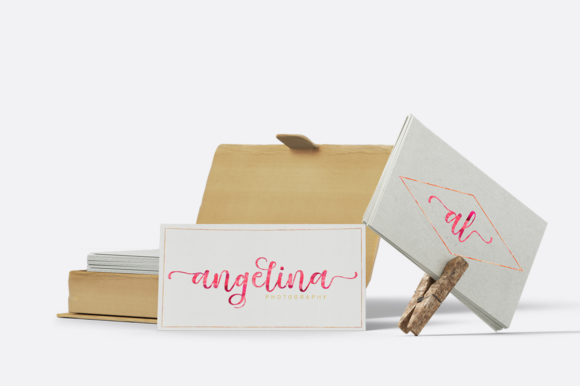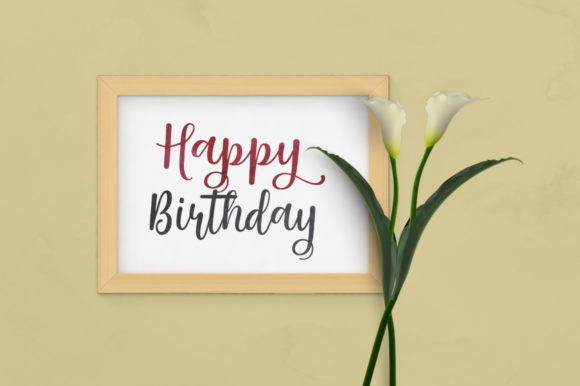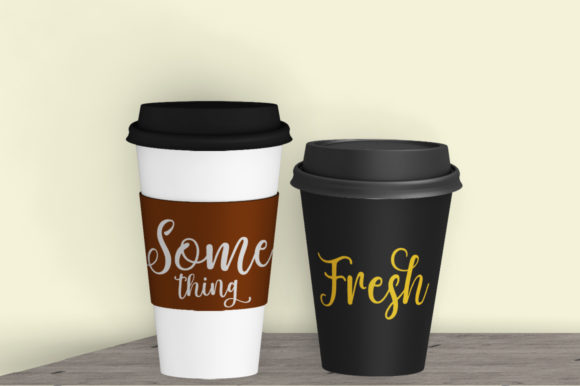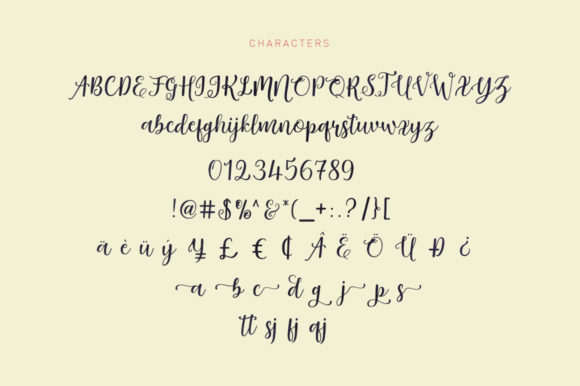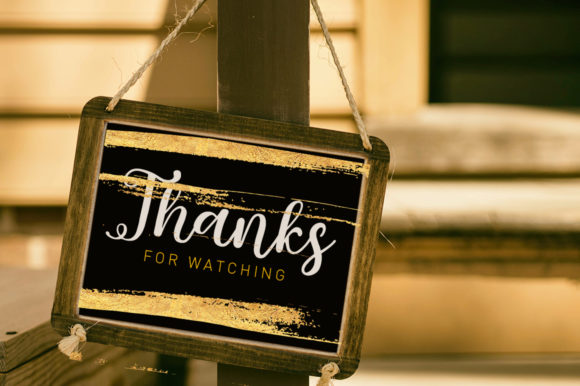
Introducing Angola Font: A Modern and Sweet Script Font with Incredible Swashes
Are you a designer or crafter looking for a unique and creative way to add a personal touch to your projects? Look no further than the Angola Font, a modern and sweet script font that is sure to take your designs to the next level. With its incredible swashes and elegant lettering, Angola Font is the perfect addition to any creative idea.
What is Angola Font?
Angola Font is a beautifully crafted script font that is designed to add a touch of elegance and sophistication to any design project. Its modern and sweet style makes it perfect for a wide range of applications, from wedding invitations and branding materials to social media graphics and digital art.
One of the standout features of Angola Font is its incredible swashes. These beautiful flourishes add a level of elegance and refinement to any design, making it perfect for designers and crafters who want to create something truly special.
Key Features of Angola Font
So, what makes Angola Font so special? Here are just a few of its key features:
- Modern and sweet script font: Angola Font has a fresh and contemporary style that is perfect for designers and crafters who want to create modern and stylish designs.
- Incredible swashes: The font’s swashes are truly exceptional, adding a level of elegance and refinement to any design.
- Elegant lettering: Each letter in the Angola Font is carefully crafted to ensure that it is both beautiful and legible.
- Perfect for creative projects: Whether you’re working on a wedding invitation, branding material, or digital art project, Angola Font is the perfect choice.
- Experiment with different swashes: One of the best things about Angola Font is its incredible swashes. Experiment with different swashes to find the one that works best for your design.
Why Designers and Crafters Love Angola Font
So, why do designers and crafters love Angola Font? Here are just a few reasons:
- Unique and creative: Angola Font is a truly unique and creative font that can help you stand out from the crowd.
- Elegant and sophisticated: The font’s elegant and sophisticated style makes it perfect for designers and crafters who want to create high-end designs.
- Incredibly versatile: Angola Font can be used with a wide range of design software and is perfect for a variety of applications.